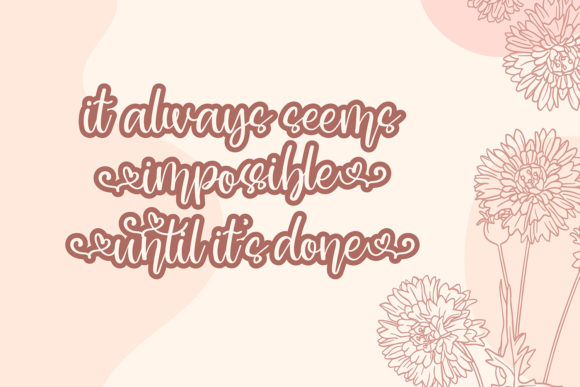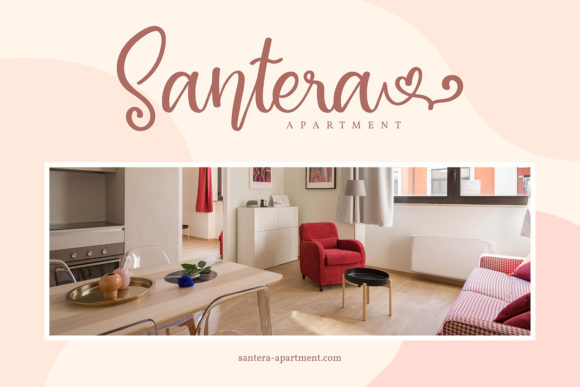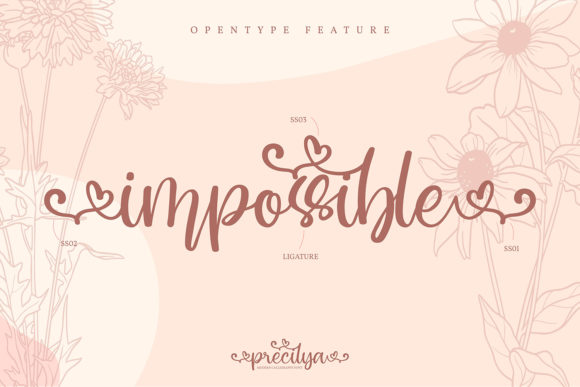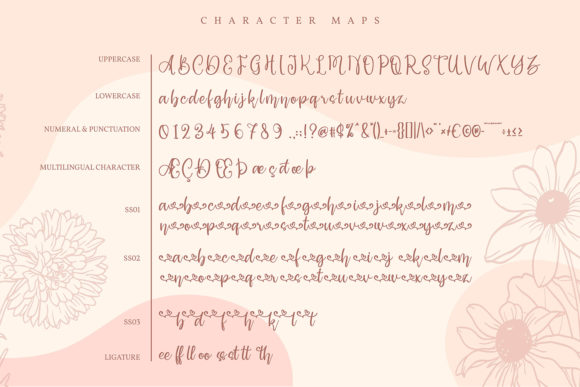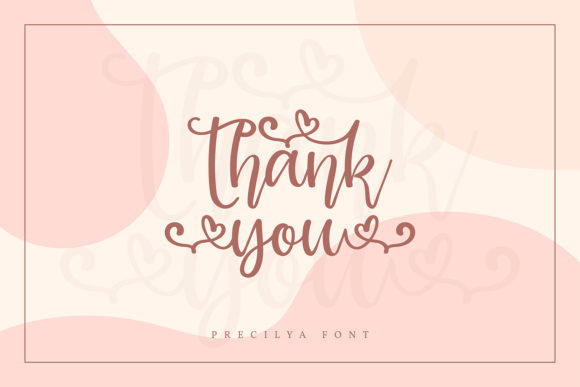
Introduction to Precilya Font
Precilya is a romantic handwritten font, featuring lovely hearts as ornaments.
It looks stunning on wedding invitations, thank you cards, quotes, greeting cards, logos, business cards and every other design which needs a handwritten touch This font is PUA encoded which means you can access all of the glyphs and swashes with ease.
Key Features of Precilya Font